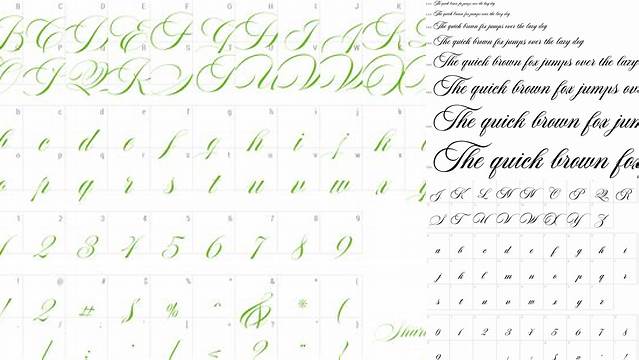
Hey guys! If you're on the hunt for a beautiful, elegant font that can add a touch of sophistication to your projects, then you've probably stumbled upon the Aston Script font. And guess what? You can get it for free! That's right, a stunning script font without emptying your wallet. This article is your go-to guide for everything you need to know about the Aston Script font, including how to download it, where to use it, and some cool tips to make your designs pop. Let's dive in!
What Makes Aston Script Font So Special?
So, what's the big deal about the Aston Script font? Well, first off, it's gorgeous! The flowing lines and graceful curves give off a sense of elegance and artistry that can instantly elevate any design. It's the kind of font that makes people say, "Wow, that's pretty!" Whether you're creating invitations, logos, social media graphics, or even just sprucing up your personal website, the Aston Script font is a fantastic choice. What really makes it stand out is the attention to detail in its design. The way the letters connect and flow together feels natural and organic, as if each word is a work of art. It has a certain timeless quality, making it suitable for both modern and vintage-inspired projects. The Aston Script font is more than just a typeface; it's a statement. It communicates creativity, style, and a touch of luxury. It's a great choice for anyone who wants to add a touch of elegance and personality to their work. Plus, the fact that you can find Aston Script font free download options makes it even more appealing, because who doesn't love a good deal?
Imagine crafting wedding invitations that look like they were professionally designed, creating a logo for your small business that exudes professionalism, or designing eye-catching social media posts that grab attention. The Aston Script font can help you achieve all of this and more. Its versatility allows it to be used in a wide range of applications. Whether you are a seasoned designer or a complete beginner, this font is easy to work with. You don't need to be a typography expert to appreciate the beauty and effectiveness of the Aston Script font. The elegant script is designed to make your text look beautiful, making it an instant choice for many designers. From creating beautiful cards to enhancing your website's appeal, the Aston Script font provides the perfect balance of artistry and readability. The subtle variations in stroke thickness, and the carefully considered letterforms come together to make the Aston Script font a versatile and elegant choice. You can use the free font version for personal and commercial projects without worrying about any extra costs.
This font has a certain unique aesthetic, and it's something that can really help your designs stand out. It's not just about the font itself; it's about the feeling it evokes. It can be romantic, sophisticated, or playful, depending on how you use it. The Aston Script font is like a secret weapon in your design arsenal, ready to transform ordinary text into something extraordinary. The elegant style adds a touch of class and professionalism. And the best part? You can often find it as a free download, making it an accessible and valuable resource for all your design needs. The Aston Script font has a range of options, including different weights and styles, giving you even more creative freedom. You can experiment with various combinations to achieve the exact look and feel you desire. This level of flexibility allows you to create unique designs that reflect your personal brand or the specific message you want to convey. So, if you want to add a touch of magic to your projects, the Aston Script font is the perfect choice. The font’s elegance and accessibility make it a must-have for anyone looking to enhance their creative projects. When you combine its beauty with the ease of a free download, it's easy to see why it's so popular.
Tips for Using Aston Script Font Effectively
So, you've got the Aston Script font free download. Now what? Here are some tips to help you use this font like a pro. First, think about your project's overall style. The Aston Script font shines in projects that require a touch of elegance, romance, or sophistication. Think wedding invitations, greeting cards, logos for businesses in the beauty or fashion industries, or even quotes for social media. Pair it with simpler, more readable fonts for body text to ensure a good balance. Don't overwhelm your design with the script font everywhere. The key is to use it strategically. Use the Aston Script font for titles, headings, or key phrases, while using a more legible font, such as a sans-serif font, for the body of the text. This creates a visual hierarchy and makes your design easier to read. Consider the color palette. The Aston Script font works particularly well with soft, pastel colors, metallic tones, or classic combinations like black and white. These color choices will enhance the font's elegant aesthetic and complement your overall design. Keep in mind the size and spacing. When using the Aston Script font, it is important to select a size that is easy to read. Adjusting the letter spacing and line spacing can also make a big difference in the readability of your text. Make sure there is enough space between the letters and lines to prevent the text from appearing cramped or overwhelming. Experiment with different weights and styles. Many font families, including Aston Script, offer different weights and styles, such as regular, bold, italic, and more. Try different combinations to see what looks best for your design. Sometimes, a slightly bolder version will make a headline stand out. Experimenting is key to creating a unique and visually appealing design.
Another essential tip is to consider the background. The Aston Script font is delicate, and it can sometimes get lost if it is placed on a busy background. Choose a background that complements the font, rather than competing with it. A solid color, a subtle texture, or a simple pattern can make the font stand out beautifully. Finally, always preview your design to see how it looks in context. Print out a draft or view it on different devices to ensure the font is readable and visually appealing in various formats. This step will help you catch any potential issues and make adjustments as needed. With these tips, you will be able to create stunning designs that showcase the beauty of the Aston Script font. From elegant wedding invitations to eye-catching social media posts, the possibilities are endless. Keep practicing and experimenting to find what works best for your creative projects. The Aston Script font is a fantastic tool that can bring a touch of elegance to your designs, and these tips will help you use it to its full potential.
Common Uses of Aston Script Font
Let's explore some common uses of the Aston Script font to give you some inspiration, and see how you can integrate it into your own projects. This elegant font is extremely versatile, making it suitable for a wide range of applications. One of the most popular uses is for wedding-related materials. The Aston Script font is ideal for creating invitations, save-the-dates, place cards, and even thank-you notes. Its graceful curves and flowing lines add a touch of romance and sophistication, perfectly capturing the essence of a special day. From creating bespoke stationery to designing elegant websites, the Aston Script font is a beautiful choice. Another popular application is for branding and logo design. The Aston Script font can be used to create logos for businesses, especially those in industries like fashion, beauty, and event planning. The font's elegant style helps to convey a sense of luxury, sophistication, and attention to detail, which can attract the right customers. The versatility of the Aston Script font allows it to be used in a variety of branding materials, including business cards, brochures, and website headers. The Aston Script font can also be used in various design projects, such as greeting cards, posters, and social media graphics. Its elegant style makes it suitable for creating eye-catching visuals that capture the attention of your audience. Whether you're designing a birthday card, promoting an event, or sharing inspirational quotes on social media, the Aston Script font can add a touch of class and charm. The font is an excellent choice for anyone who wants to add a touch of elegance and personality to their projects. Whether you're designing invitations, crafting logos, or creating social media graphics, the Aston Script font adds a touch of sophistication to your designs.
Conclusion: Get Creative with Aston Script!
There you have it, guys! The Aston Script font is a beautiful and versatile choice for any design project, and the fact that you can get it through an Aston Script font free download is just the icing on the cake. Remember to always download fonts from reliable sources, experiment with different styles and pairings, and consider the overall aesthetic of your project. Have fun and enjoy the creative process! With a little bit of creativity and these tips, you will be able to transform your designs. So, go out there, download the font, and start creating something amazing! The Aston Script font is a powerful tool, and its beauty is matched by its accessibility. This makes it a fantastic choice for both amateur and professional designers. By taking the time to learn about the font's features, you can create visually stunning designs. Remember to practice, experiment, and enjoy the process. The Aston Script font is a fantastic resource that can help you elevate your work. By combining its beauty with the ease of a free download, you can create captivating designs that will impress everyone. Now go create something awesome!